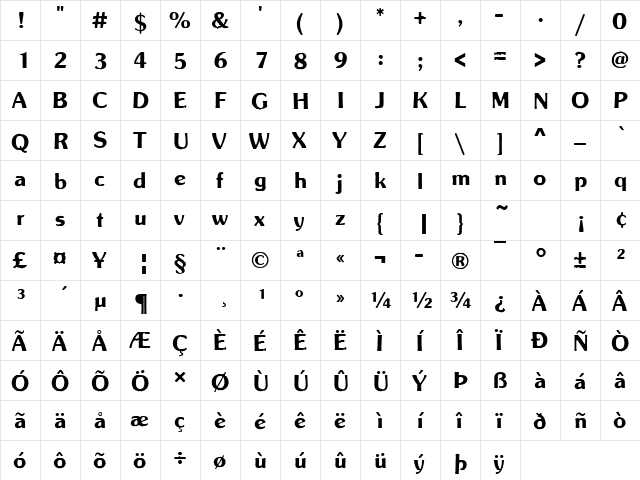
SouvenirGotAntDDem Regular
Design Context for SouvenirGotAntDDem Typeface
SouvenirGotAntDDem offers clean, dependable letterforms without strong stylistic allegiance, making it a practical choice for designers who need flexibility.